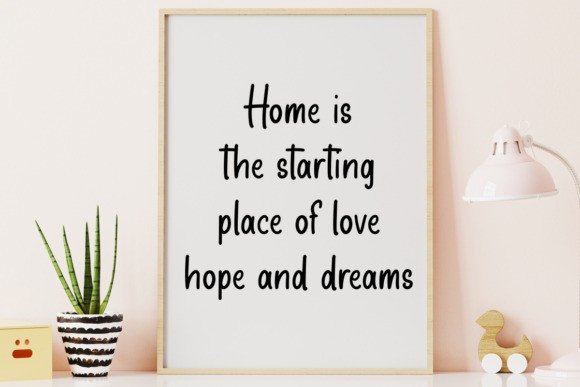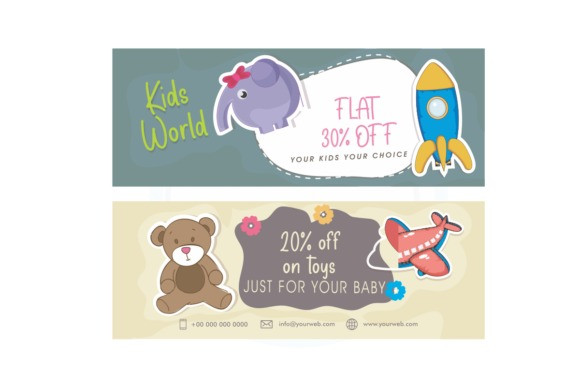
Charming Childish Font
Charming Childish Font is a lovely, neat and well balanced handwritten font. Whatever the topic, this font will be a wonderful asset to your font library, as it has the potential to enhance any creation.